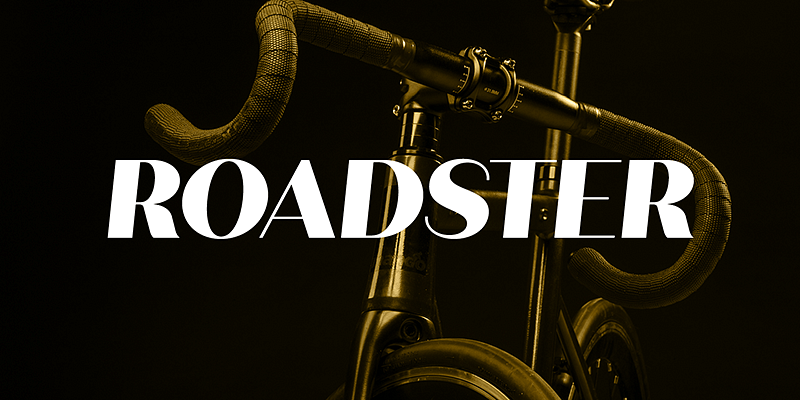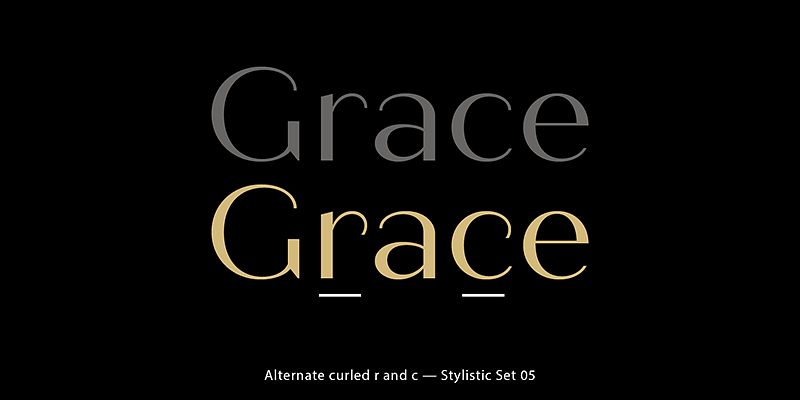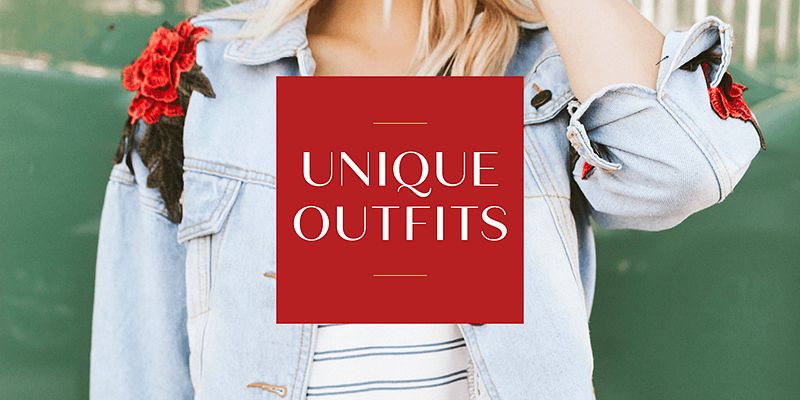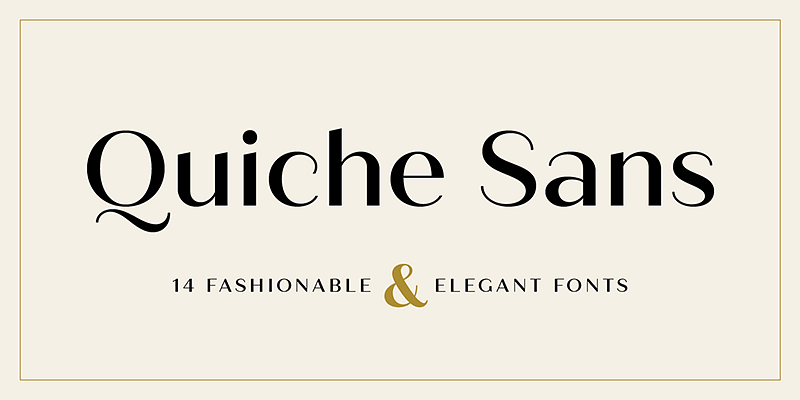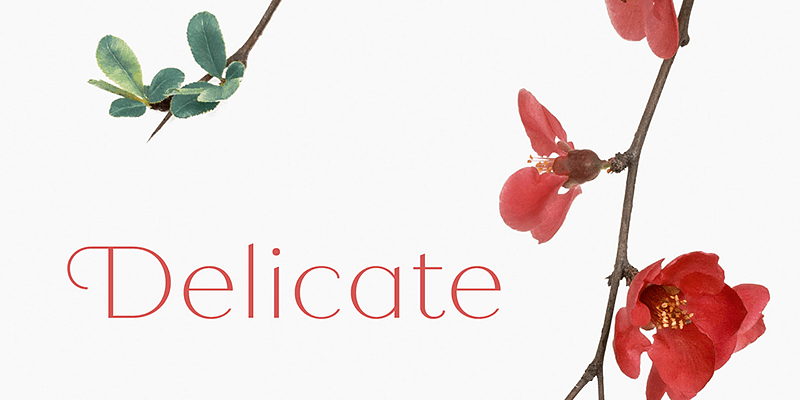
Quiche Sans is a high-contrast sans with monolinear stroke endings, angled stems, and geometric proportions. A sibling to Quiche, the design is also influenced by the Didone genre, characterized by its elegance and extreme contrast. But with the serifs removed, it becomes uniquely modern. Quiche Sans is ready for branding, advertising, magazines, products, packaging, labels, invitations, stationery, fashion, and more. Use it with Quiche to expand the versatility even further!